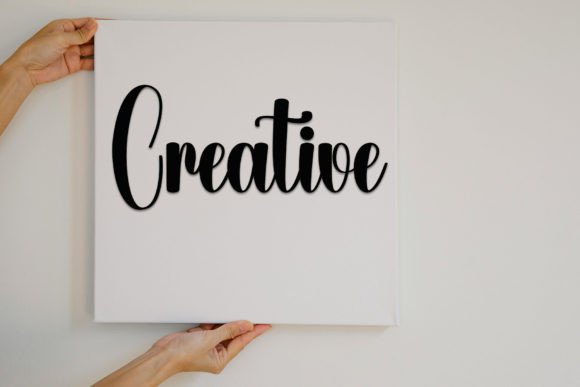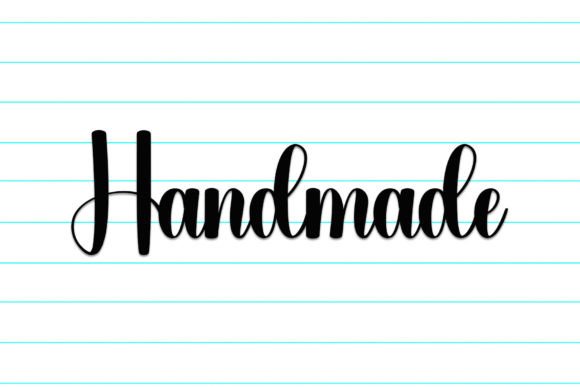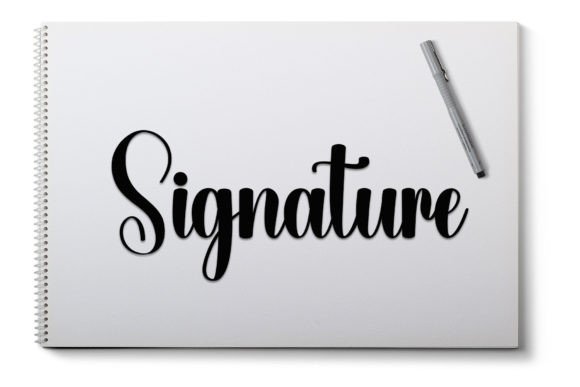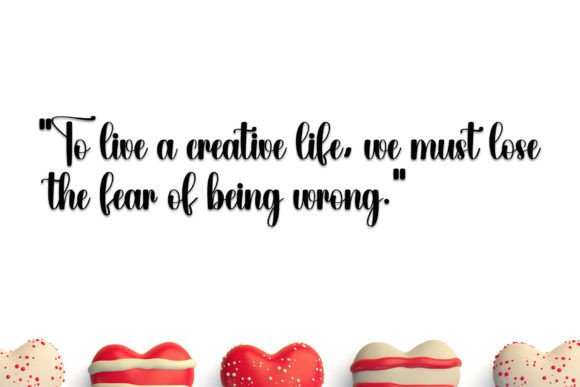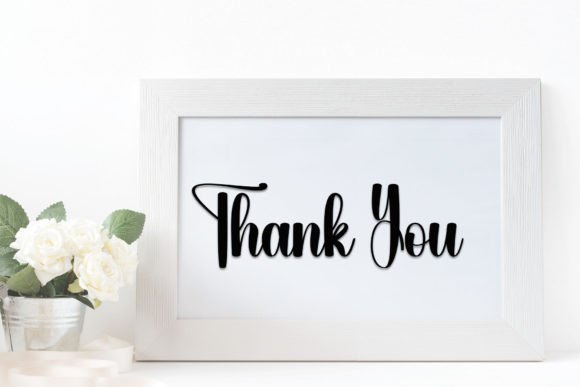
The Magic of Books Vintage Font: A Designer’s Delight
It’s the most wonderful time of the year – and I’m not just talking about the holiday season! As a designer, I thrive on finding the perfect font to bring my projects to life. I recall a particularly stressful design moment when I was working on a festive greeting card project. My client wanted a font that screamed ‘joy’ and ‘cheer,’ but I was stuck in a creative rut. That’s when I stumbled upon the Books Vintage font – and it was love at first sight! 🎉
- ✅ Festive and happy vibe that’s perfect for holiday designs
- ✅ Unique decorative elements that add a touch of charm
- ✅ Works beautifully for greeting cards, gift labels, and holiday-themed projects
- ⚠️ Might not be the best fit for formal or professional designs
- ⚠️ Some users might find the font a bit too ornate for their taste
The Story Behind Books Vintage Font
The Books Vintage font was designed with the holiday season in mind. Its creator wanted to capture the magic and nostalgia of vintage books and festive decorations. The result is a font that’s both cheerful and elegant – perfect for adding a touch of personality to your designs.